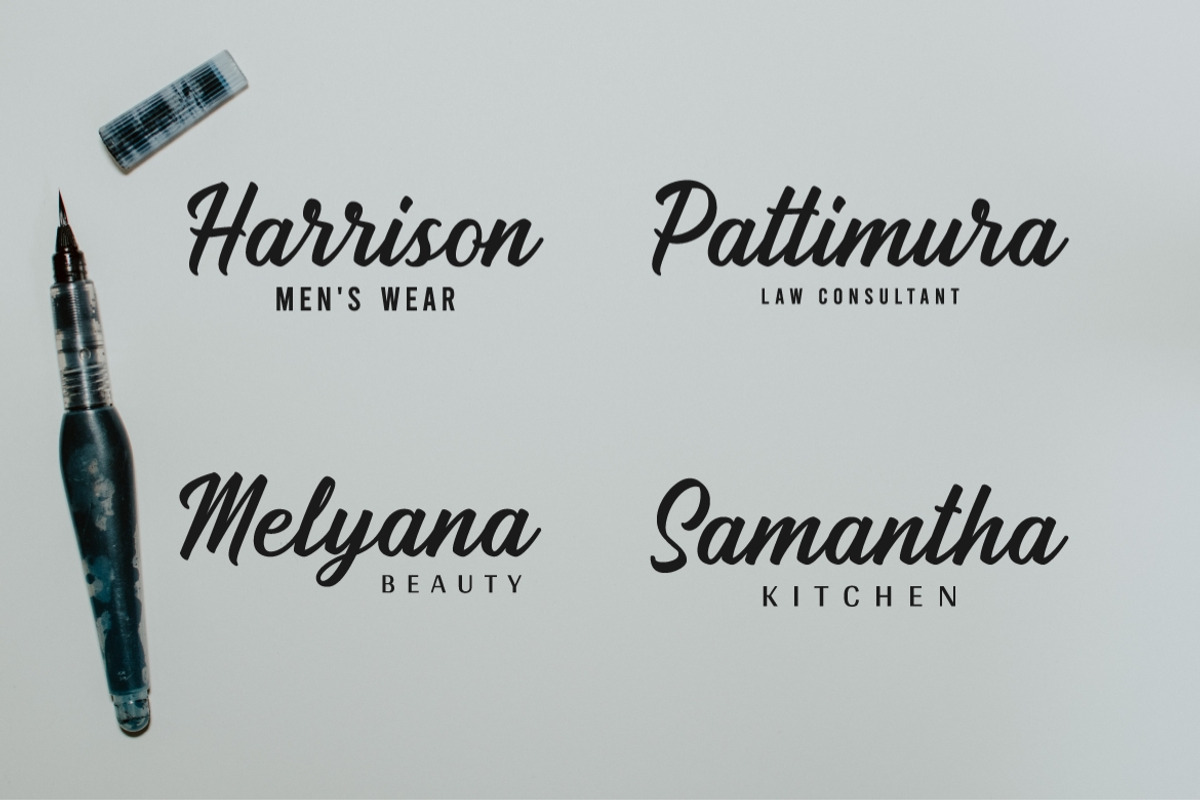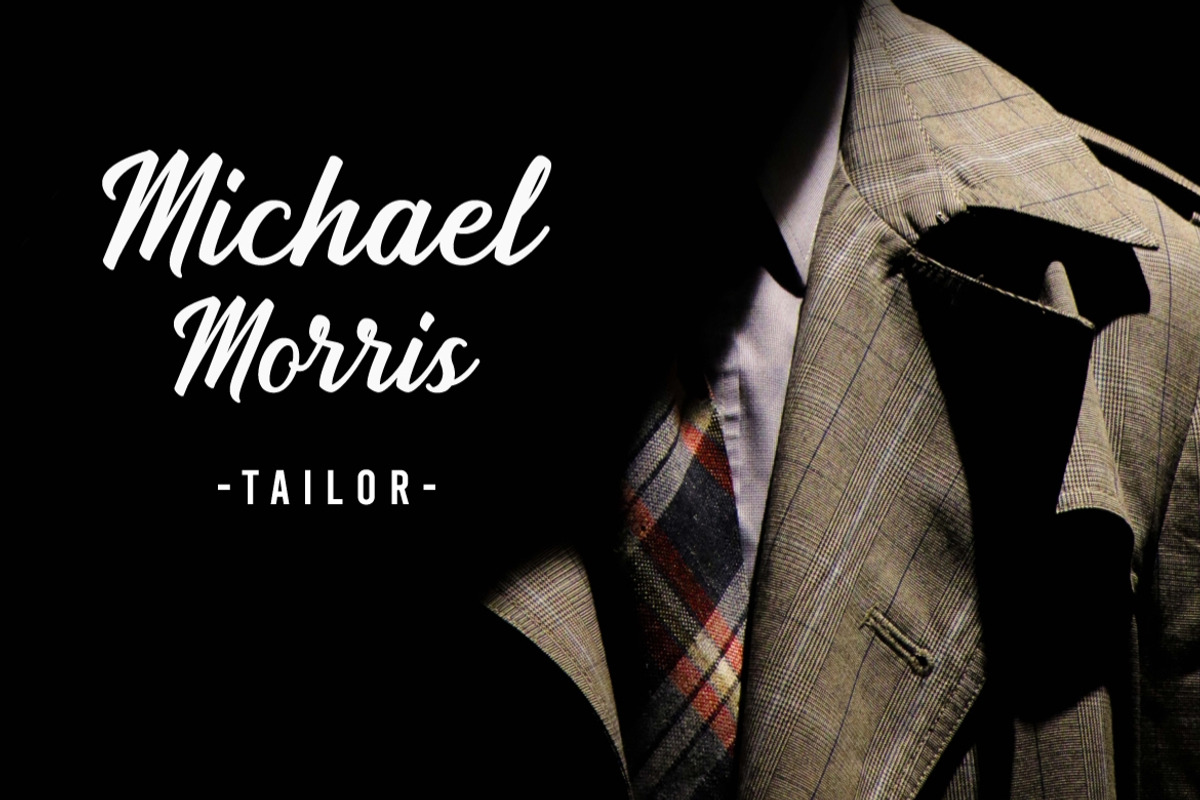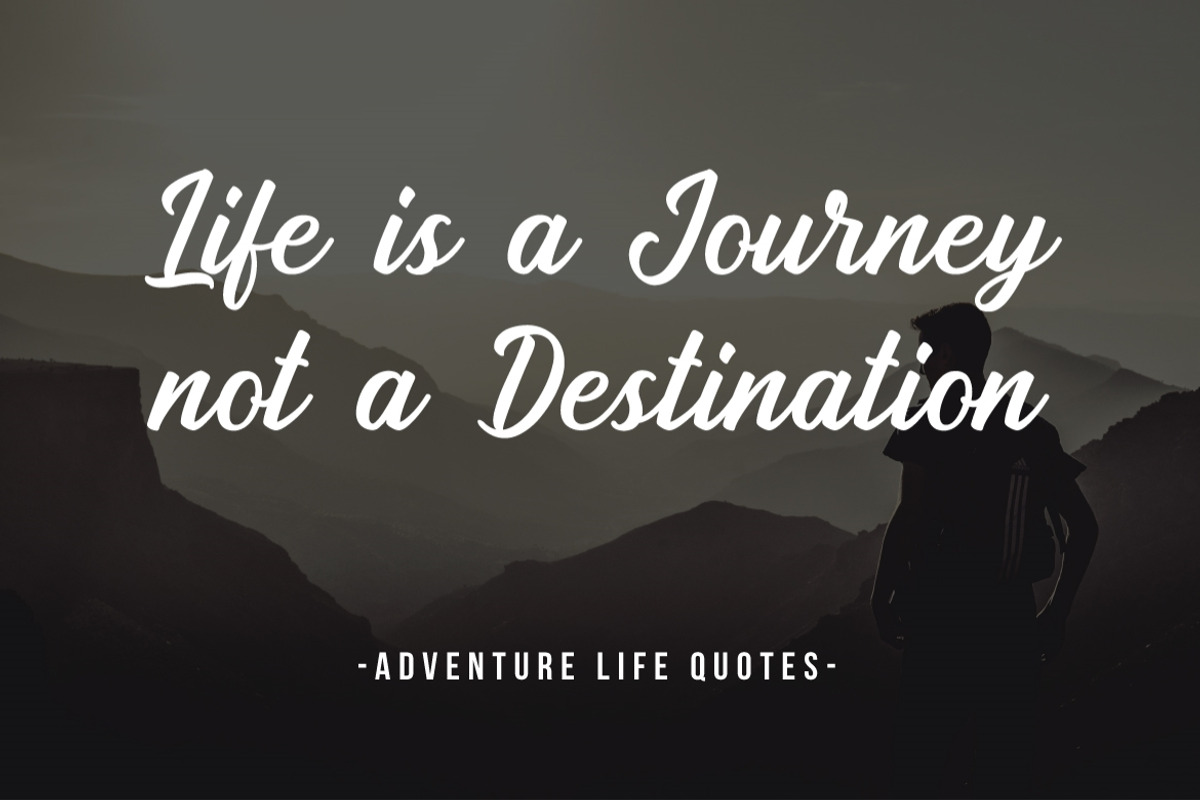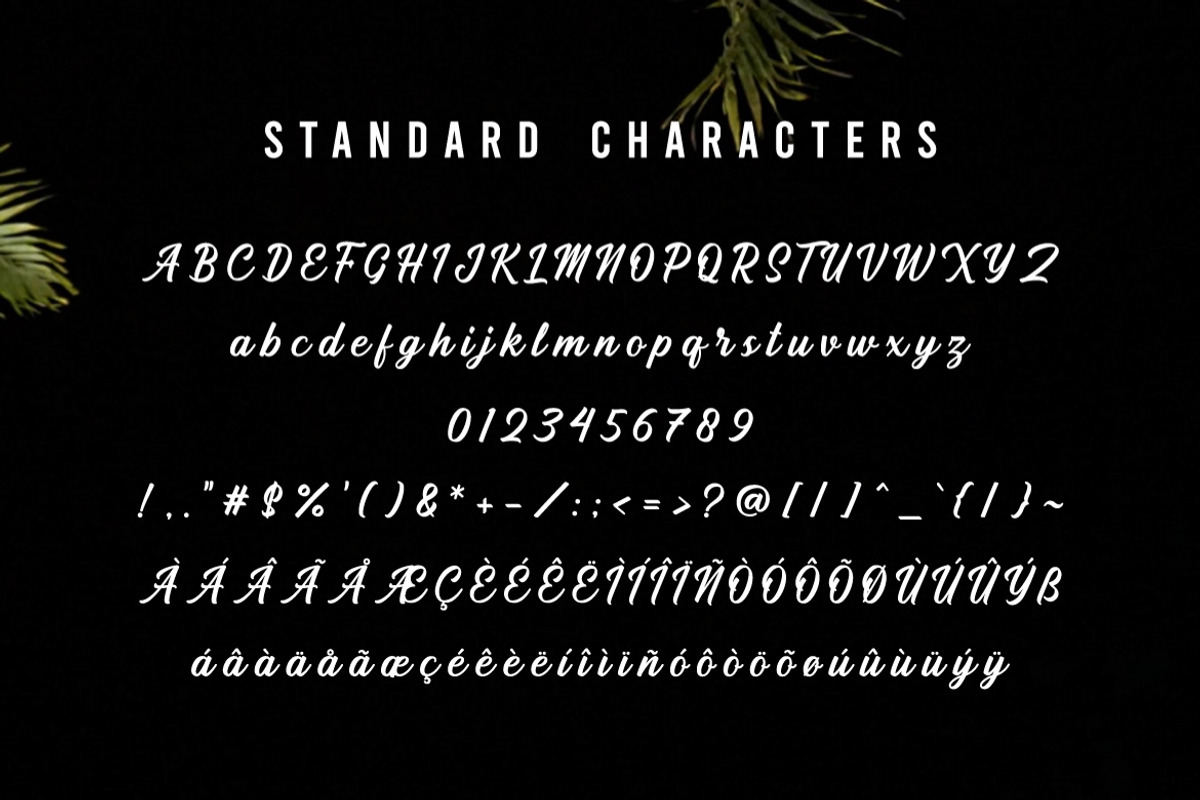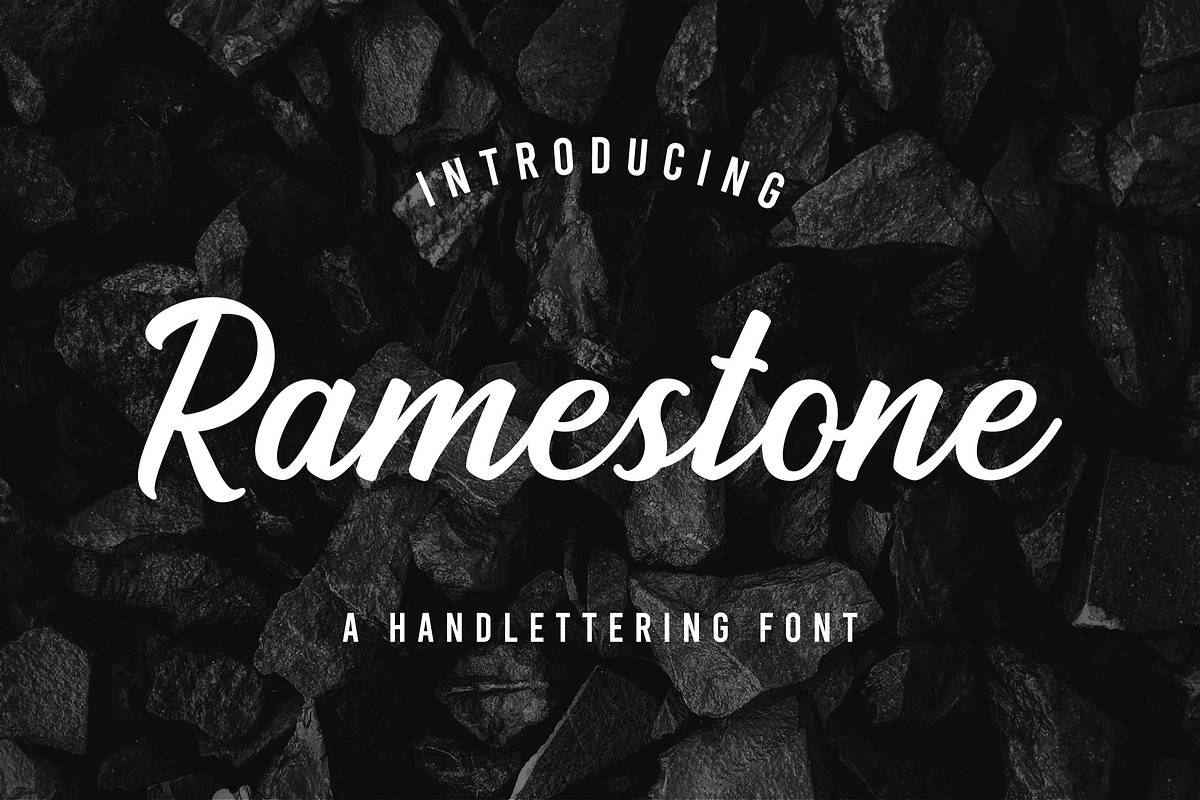
Ramestone - Handlettering Font
Ramestone is a bold script font we make it genderless or universal so it can be used for feminine or masculine product. The feel we want to emphasize is elegant, pride and also kinda playful to be applicable for kids-related things.